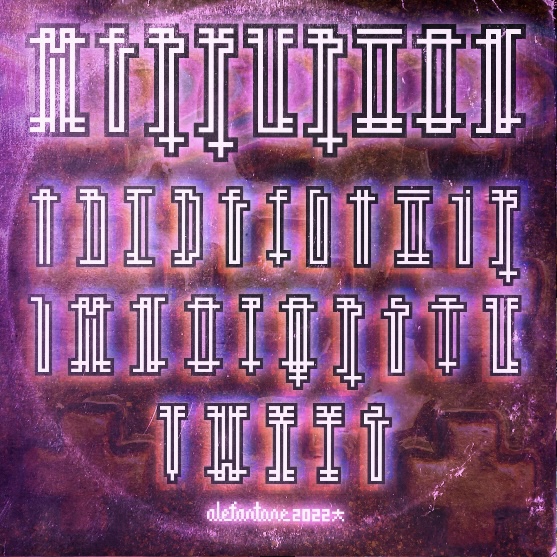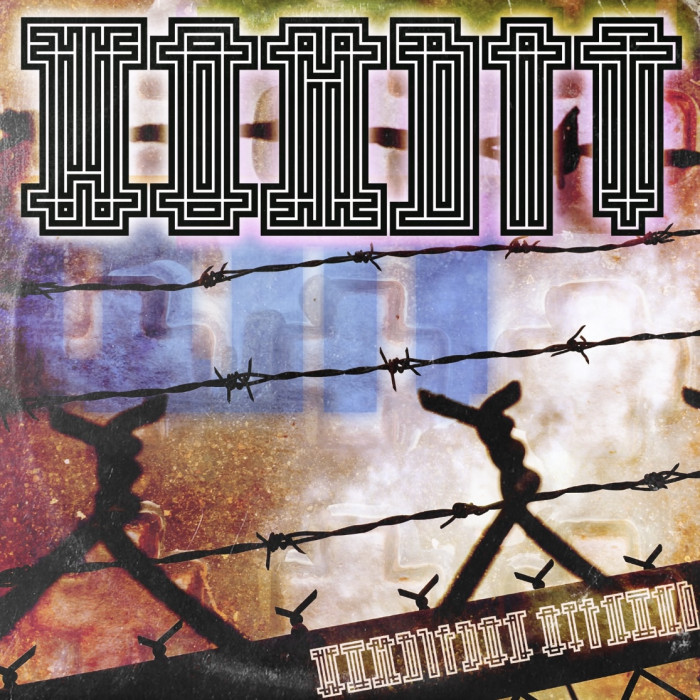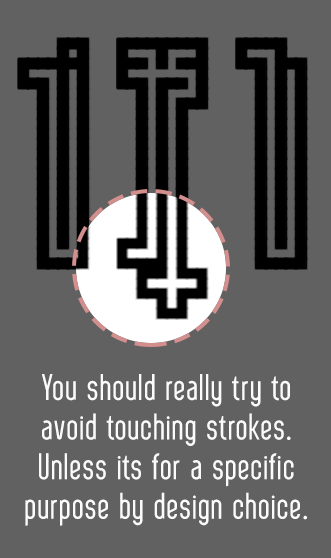
• Was thinking tall Art Deco semi gothic space ship Led Zeppelin album cover and the name Dartmouth Echoes came to mind, but that sounded too fancy for this little letter project.
WOMBAT "WIMBLEDON OPENING"
@sed4tives good catch!